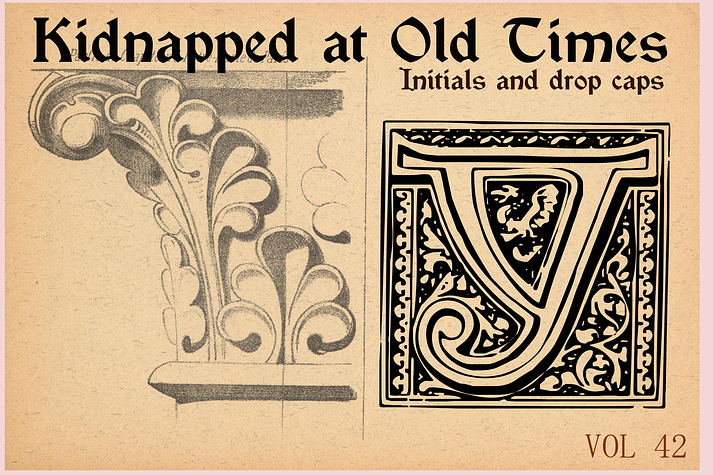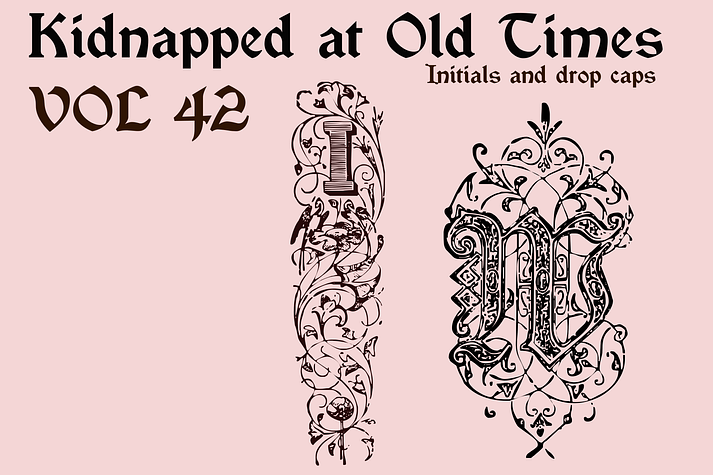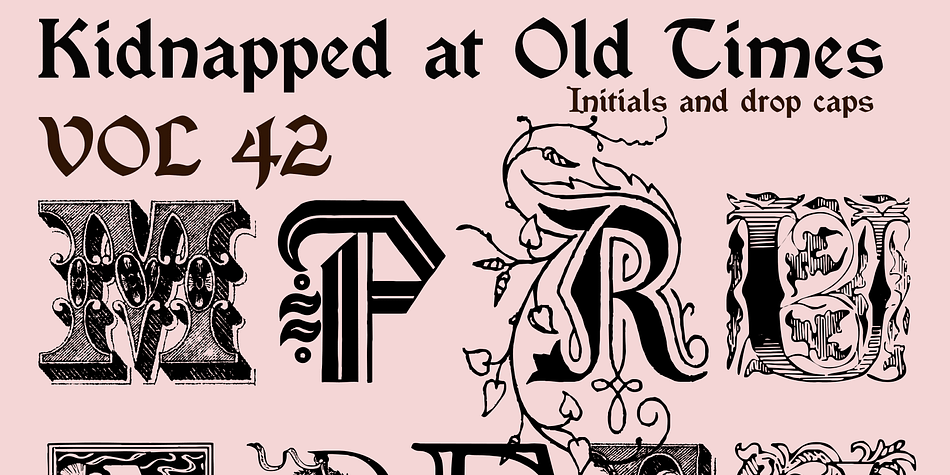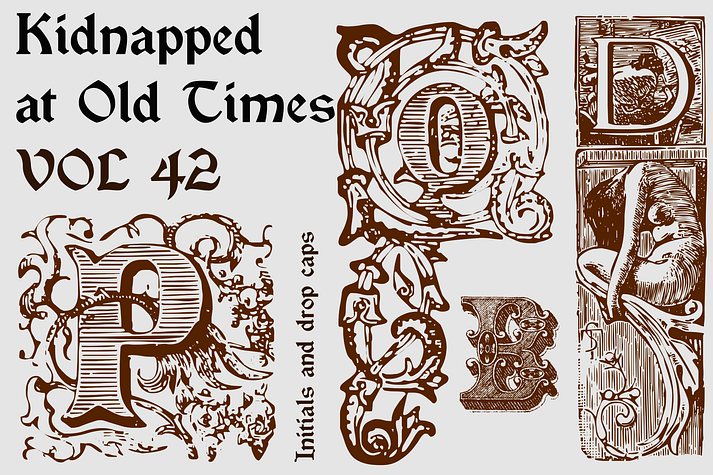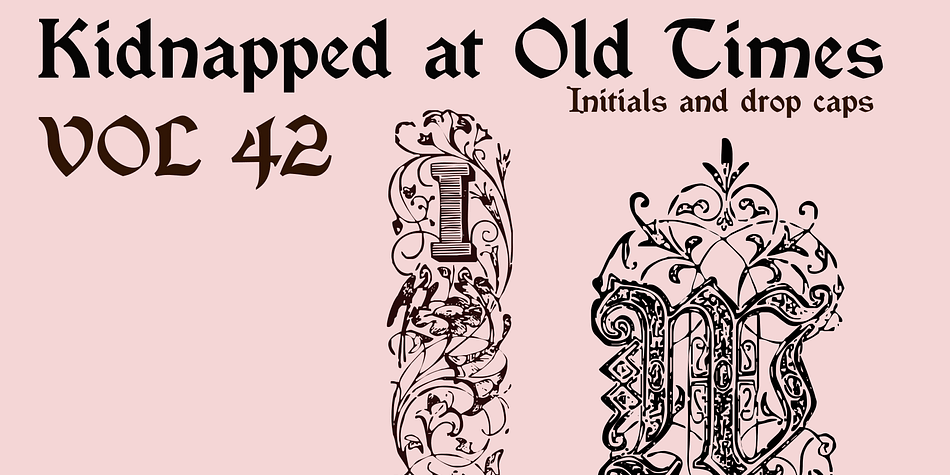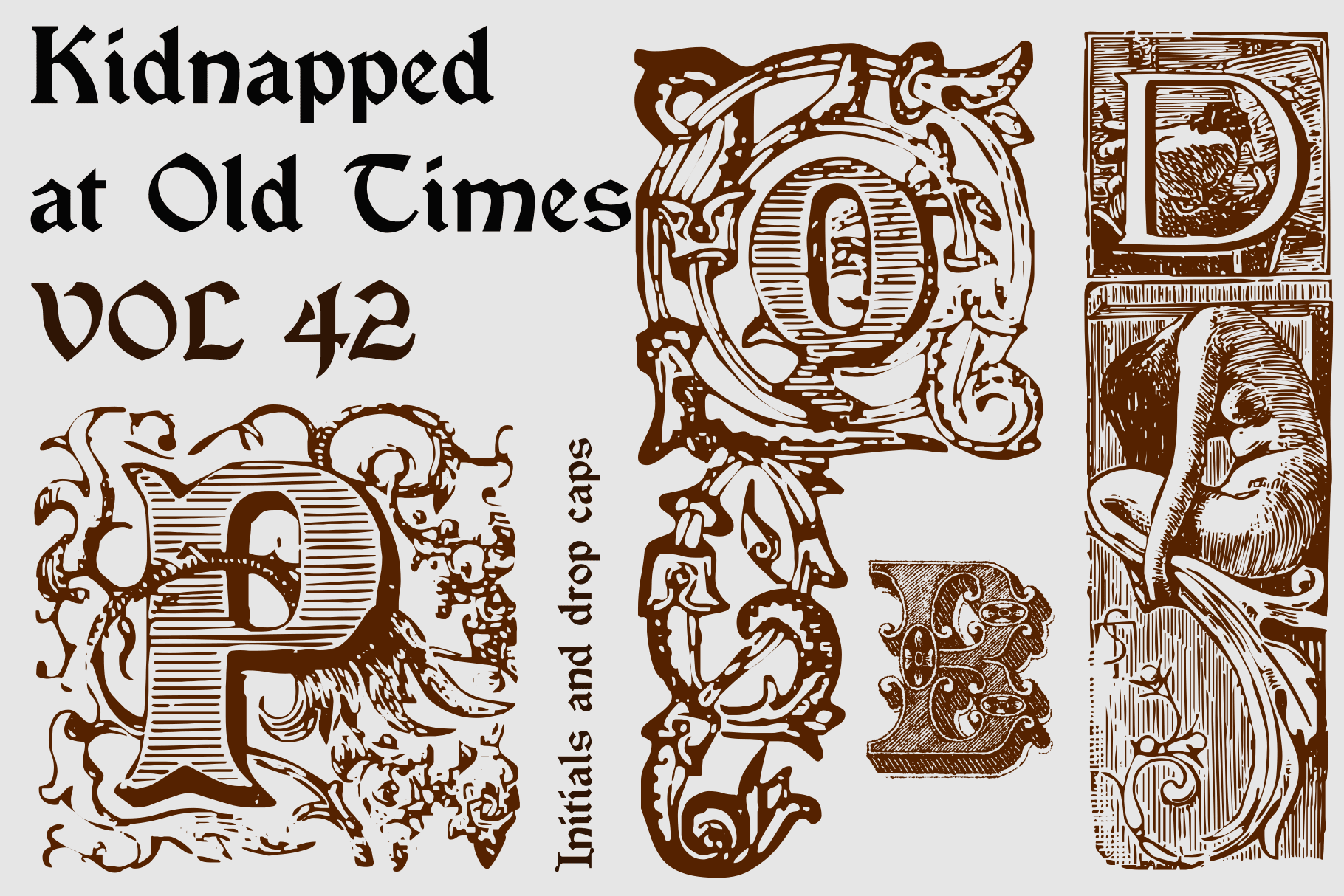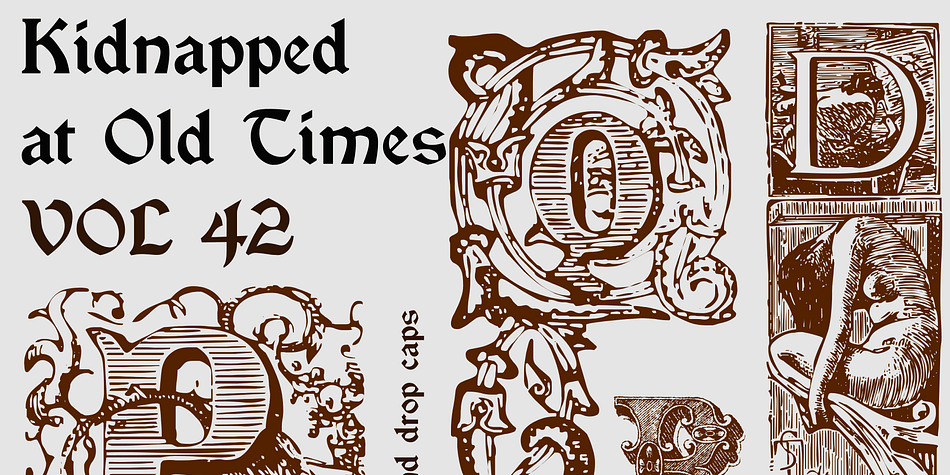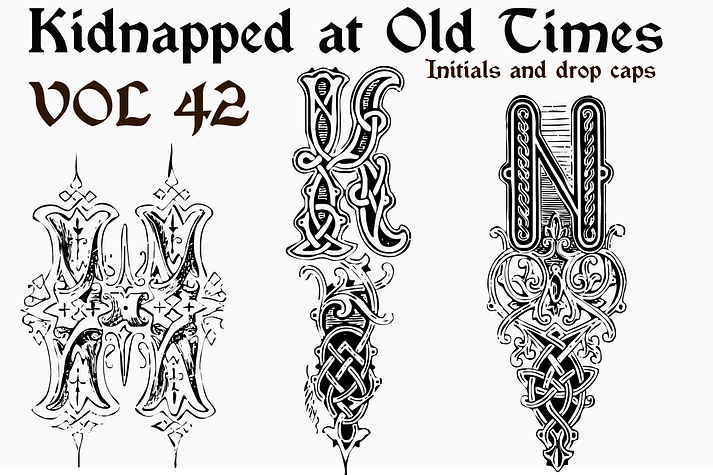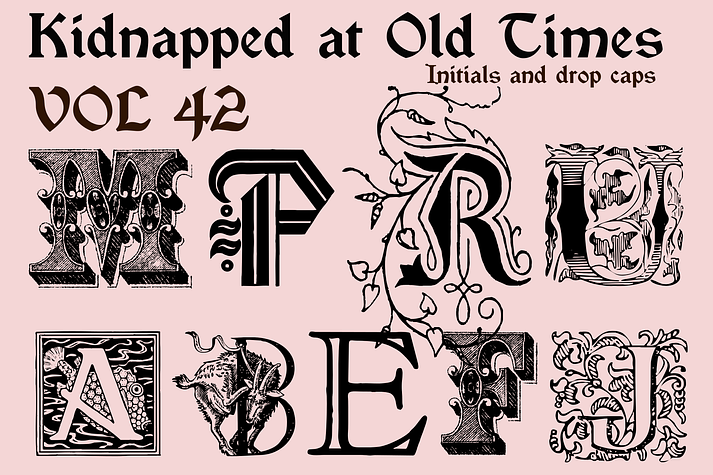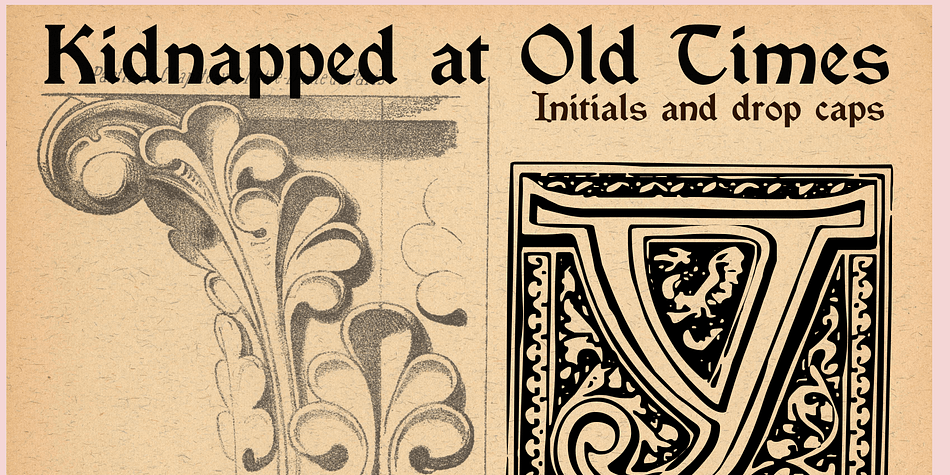
Kidnapped at Old Times 42
Designed by Paulo W, Kidnapped at Old Times 42 is a historical and monograms font family published by Intellecta Design.
A mix of initial and decorated drop caps, from many historical periods andmany styles